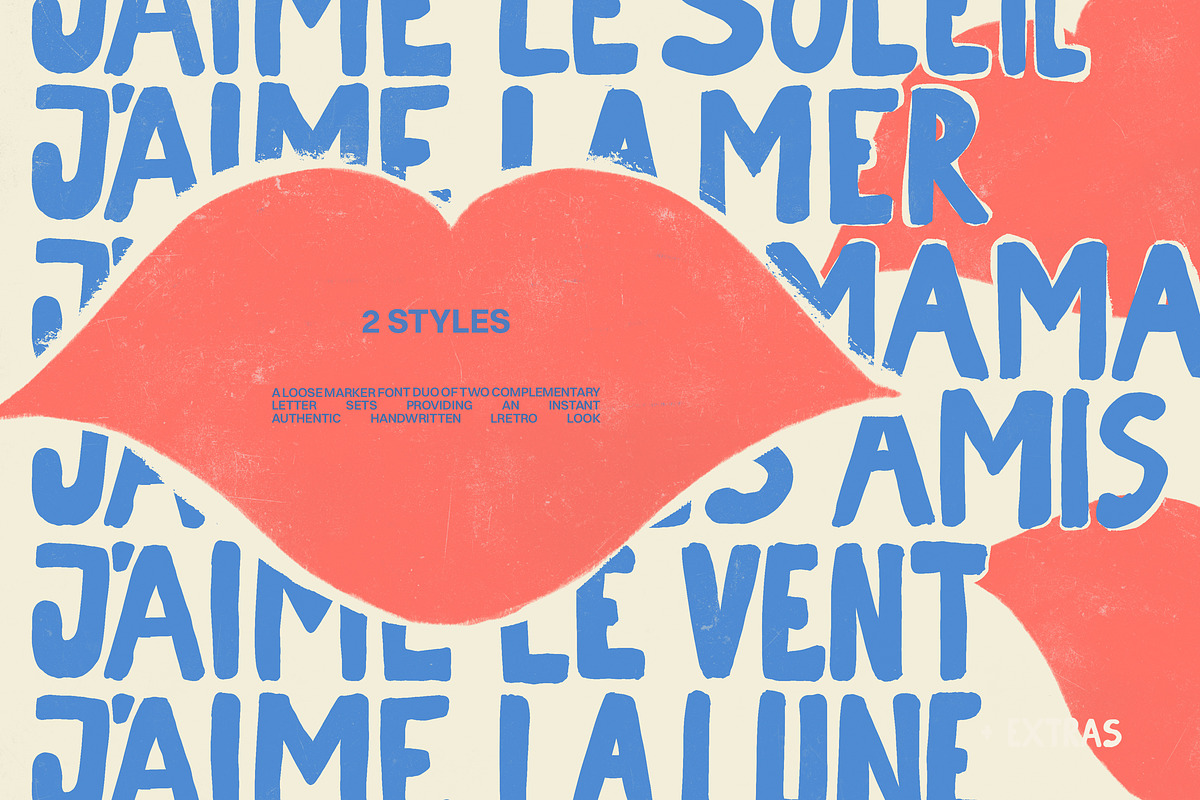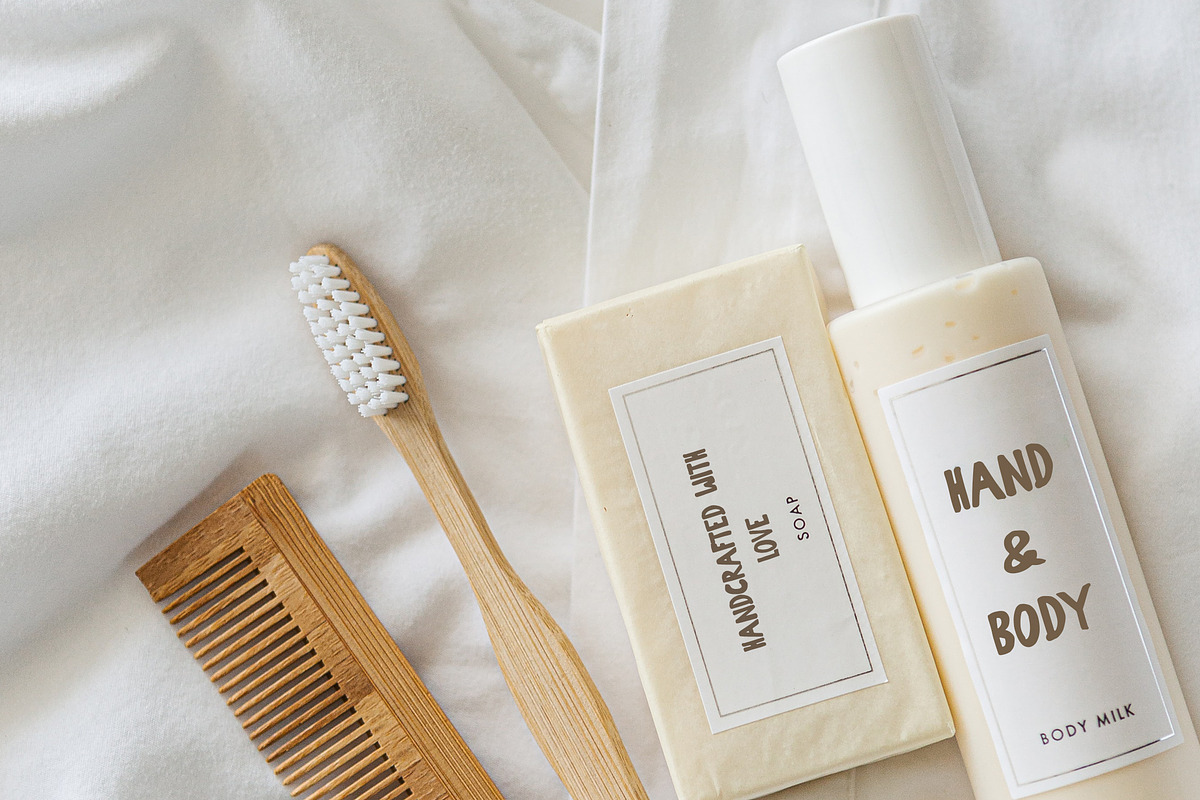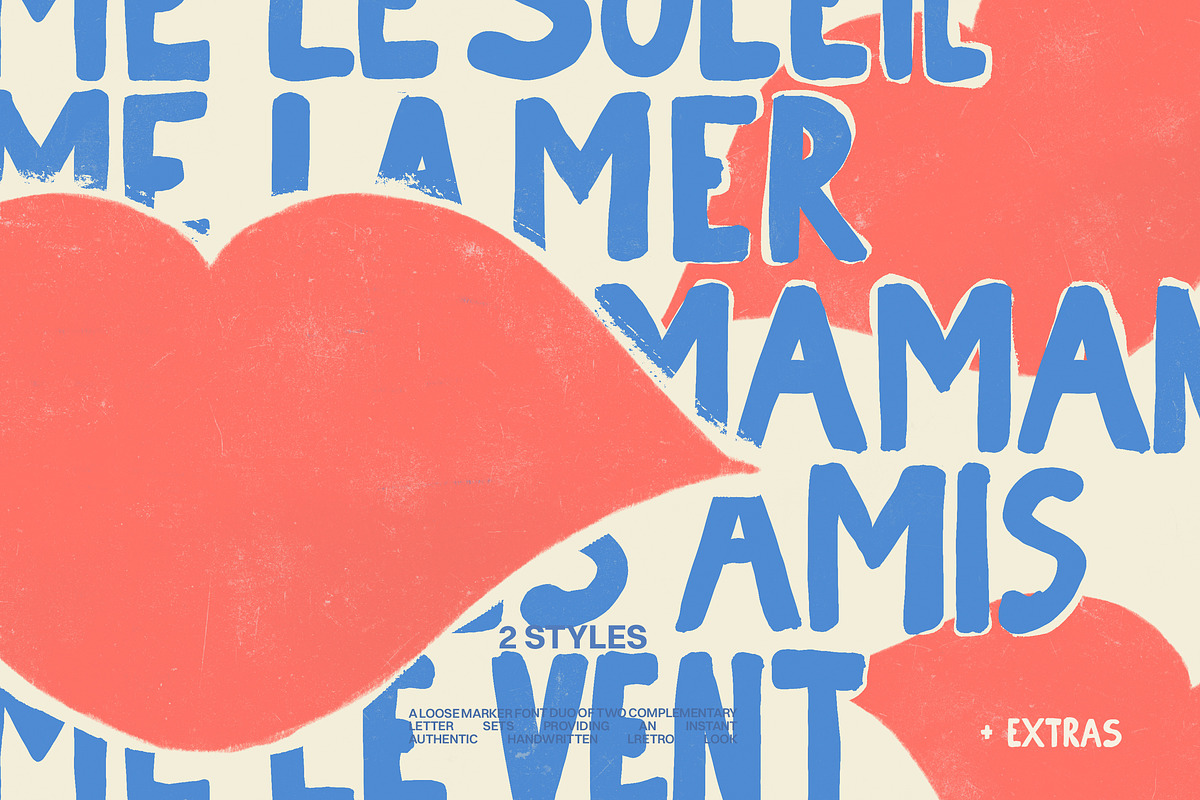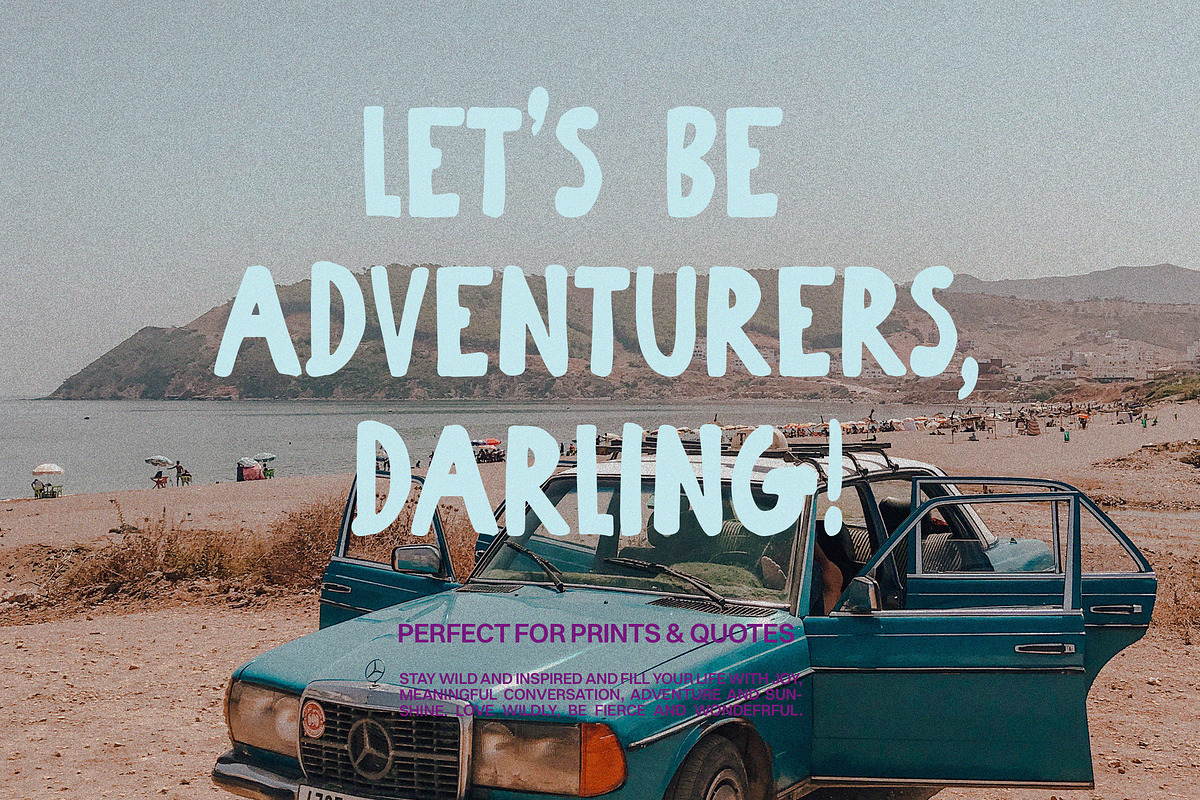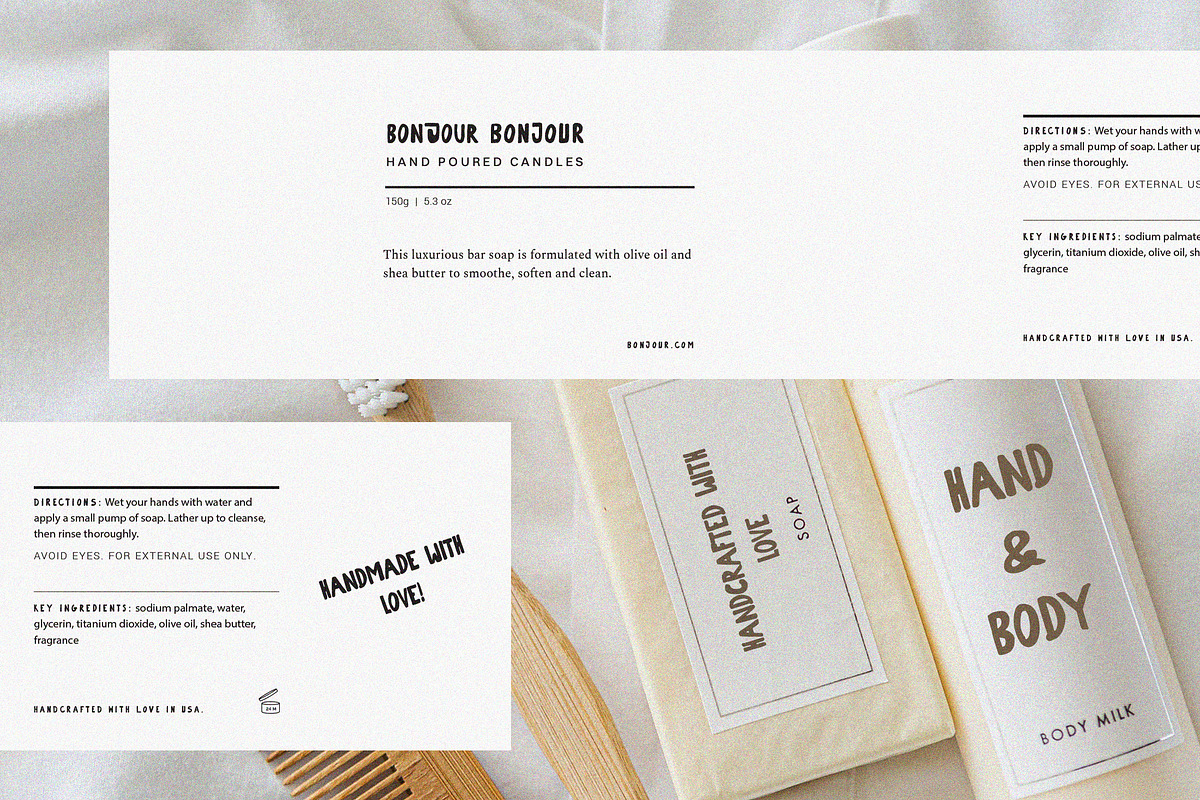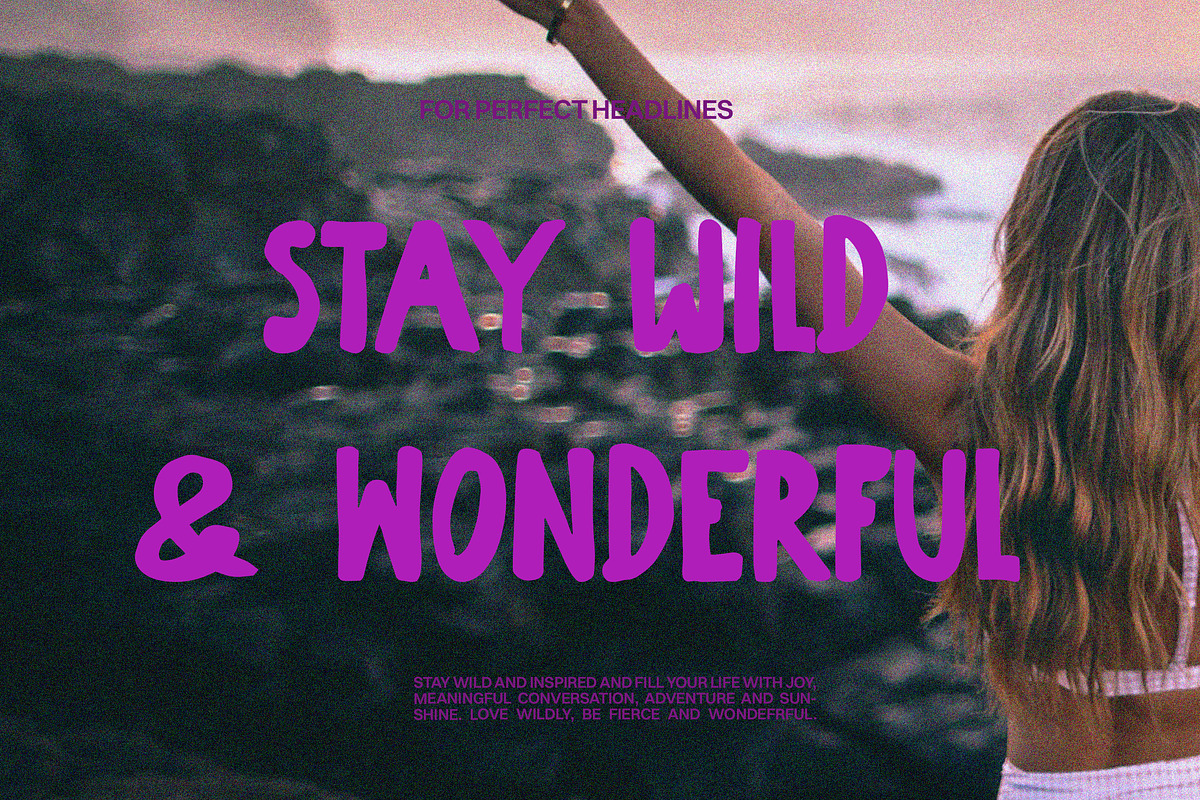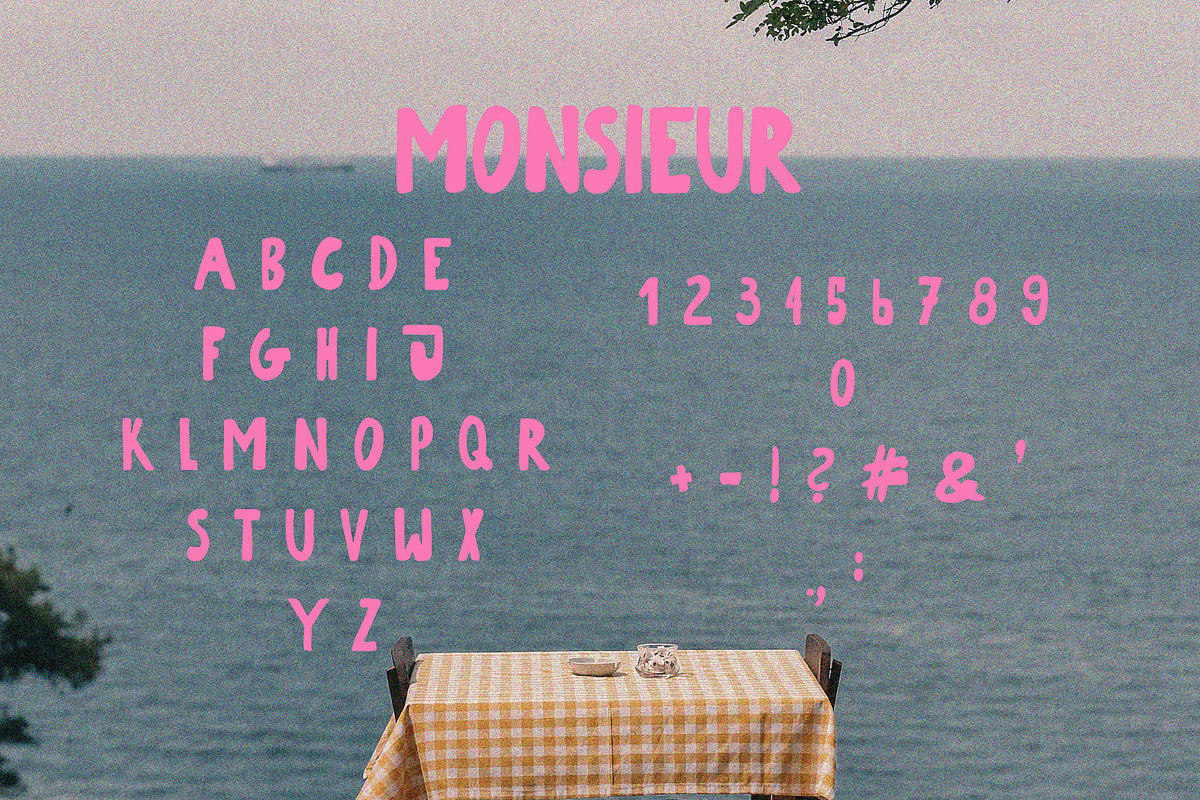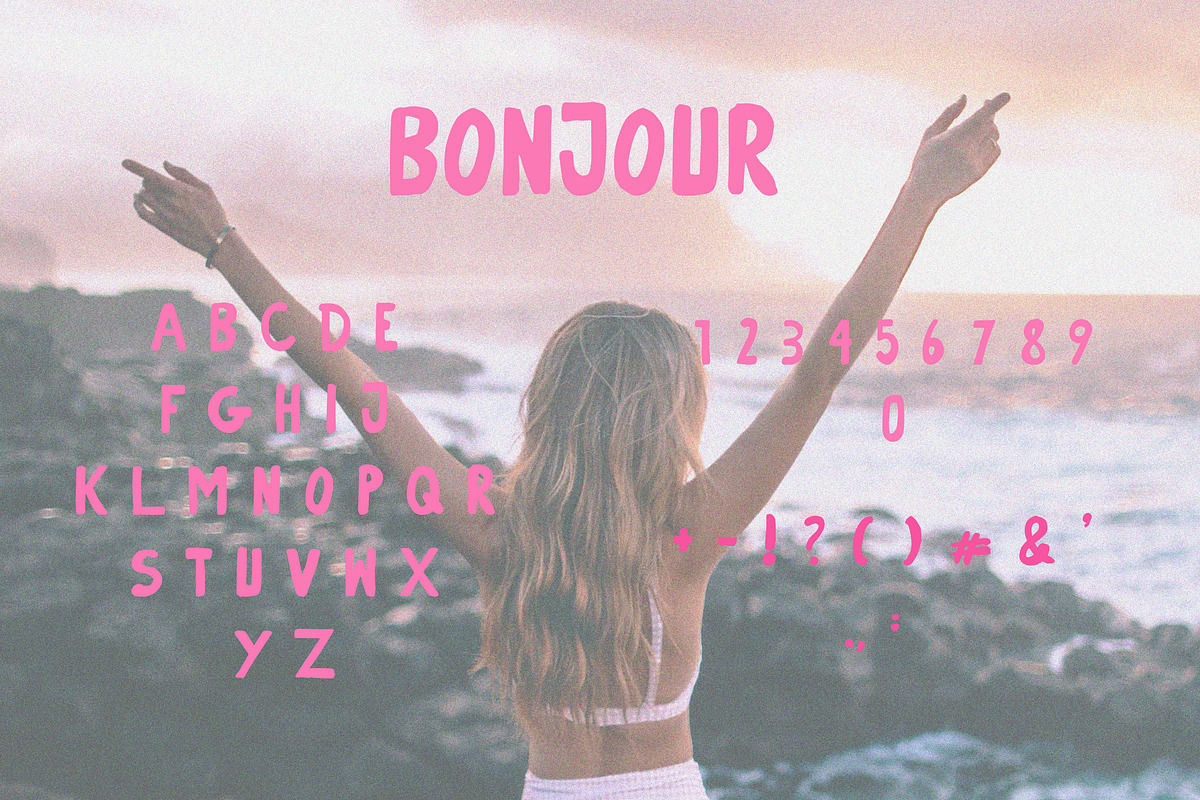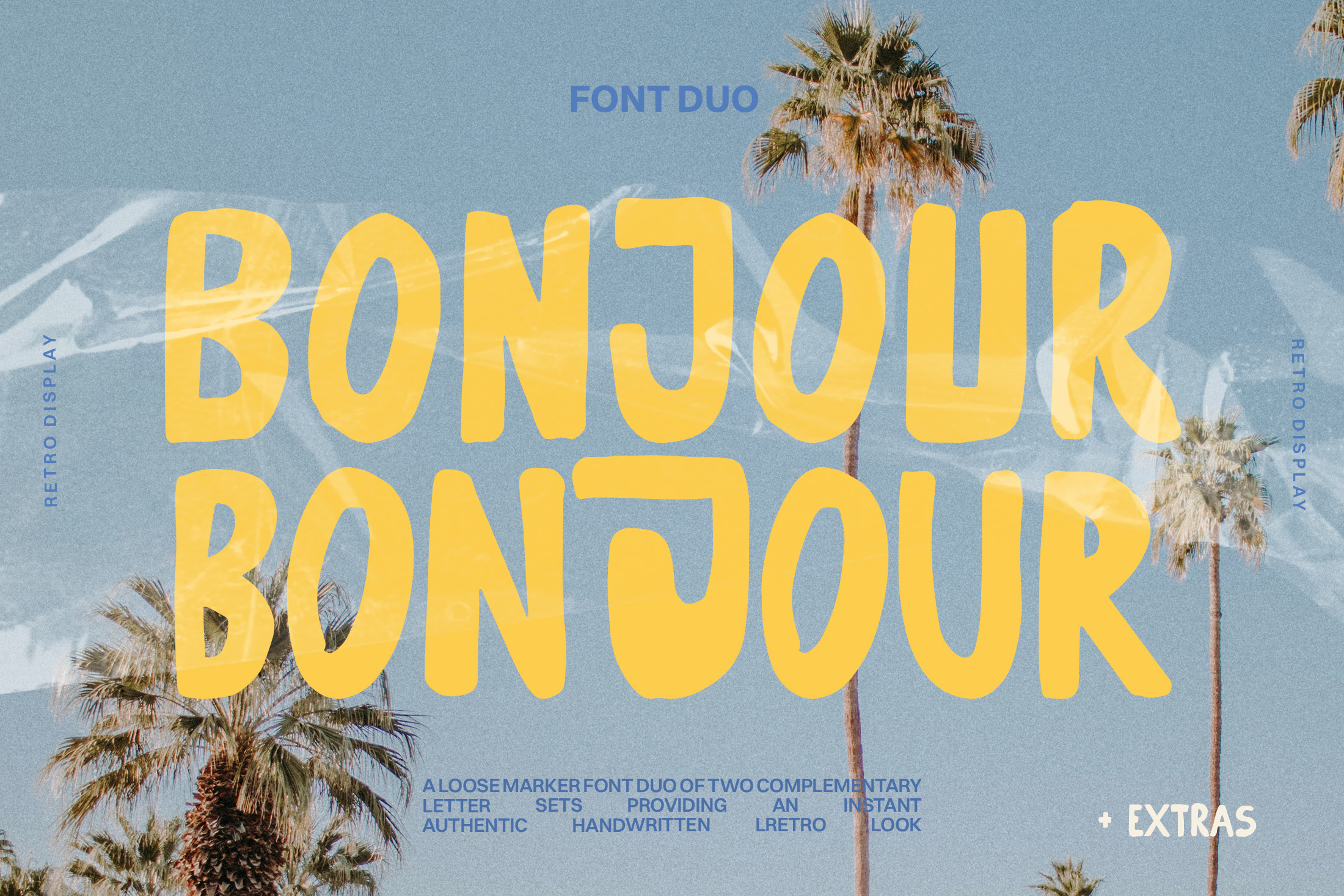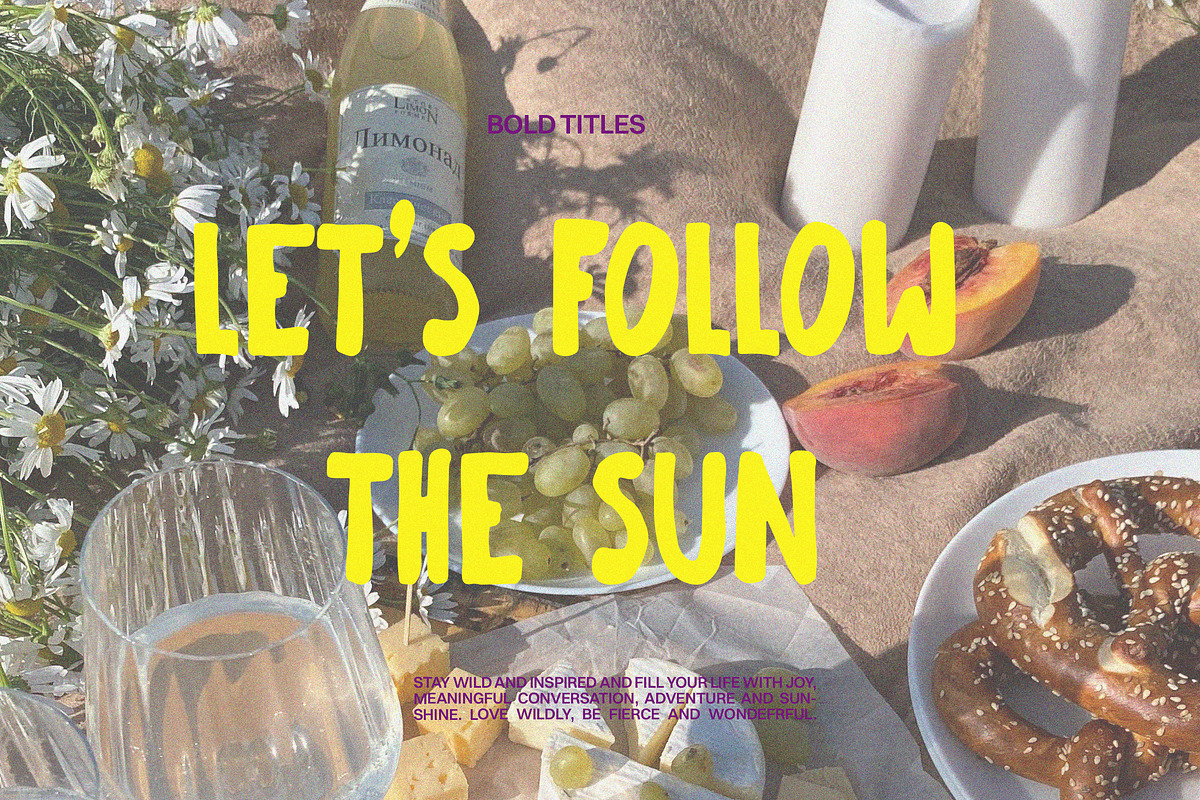
Handmade Retro Marker Font Duo
Bonjour & Bonjour is a super fun font duo, created to make every text look like authentic hand lettering. The all-caps marker typeface is perfect for bold headlines, posters, shirt designs, fashion brands, social media content and funky ads. It just adds that oh-so-trendy vibe in a matter of minutes. Mix & match both fonts included so that you'll have lots of different letters for that unique look & feel!
- a fun set of extra scribbles